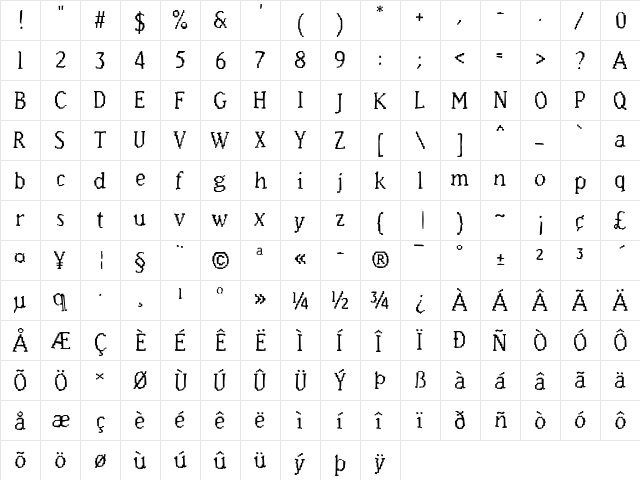
Murphy33 Thin
Design Context for Murphy33 Typeface
Murphy33 takes a measured approach to typography — its balanced proportions and neutral character make it a reliable workhorse for both digital and print work. The delicate stroke weight brings airiness and refinement to layouts.